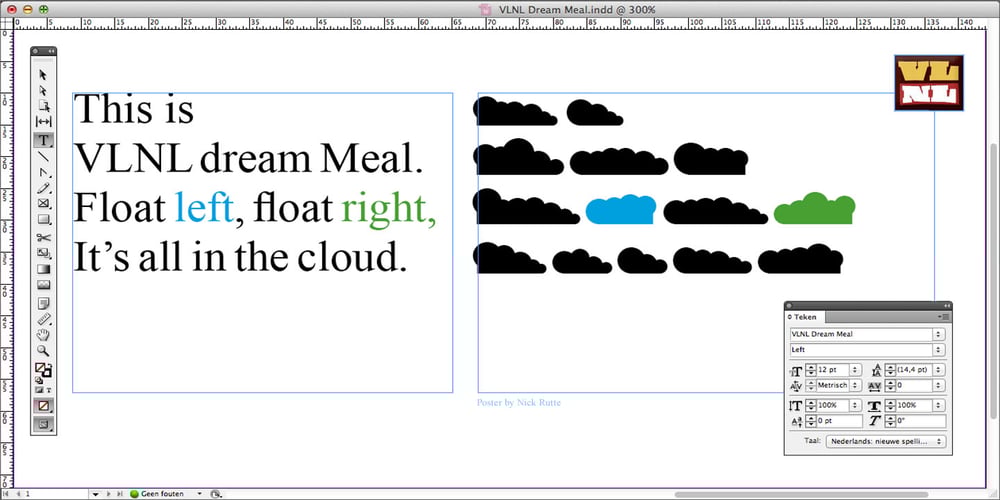
VLNL Dream Meal Font Family was designed by Donald Roos, Nick Rutte and published by VetteLetters. VLNL Dream Meal contains 2 styles and family package options. Nowadays, everything is ‘In The Cloud’. So why not put information in clouds directly? Here it is: a happy dreamy cloudy font. It’s called Dream Meal. Don’t read, just dream away; about nice food and typographic sensations. You can set whole texts ‘in the cloud’. Every character makes up a part of a cloud. The clouds can float to the left or to the right. It’s an Open Type font. Actually: This font is a dream!